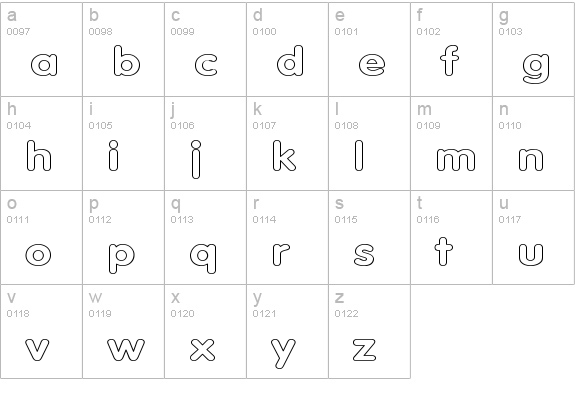
Tubular Hollow Wd Font Details
Tubular Hollow Wd font is a captivating and modern typeface that will surely make your designs stand out. With its sleek and edgy appearance, this font adds a touch of contemporary sophistication to any project. The unique characteristic of Tubular Hollow Wd font lies in its hollow and tubular style, which gives it a three-dimensional effect. The letters are intricately designed with smooth curves and clean lines, creating a visually appealing and eye-catching display. This font is perfect for various design purposes, including branding, logos, headlines, posters, and more. Its versatility allows it to be used in both digital and print media, making it an excellent choice for any creative project. One of the best things about Tubular Hollow Wd font is that it is freely available to download at FontsMarket.com. This means that you can easily access this stunning font and incorporate it into your designs without any cost. The convenience of having a high-quality font at your fingertips without spending a penny is a true asset for any designer. So, if you're looking to add a touch of modernity and style to your designs, look no further than Tubular Hollow Wd font. Download it for free at FontsMarket.com and let your creativity soar to new heights!